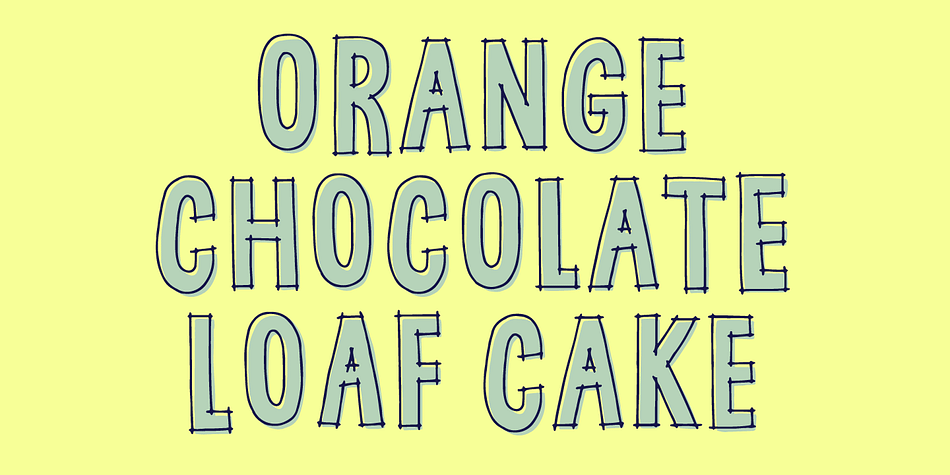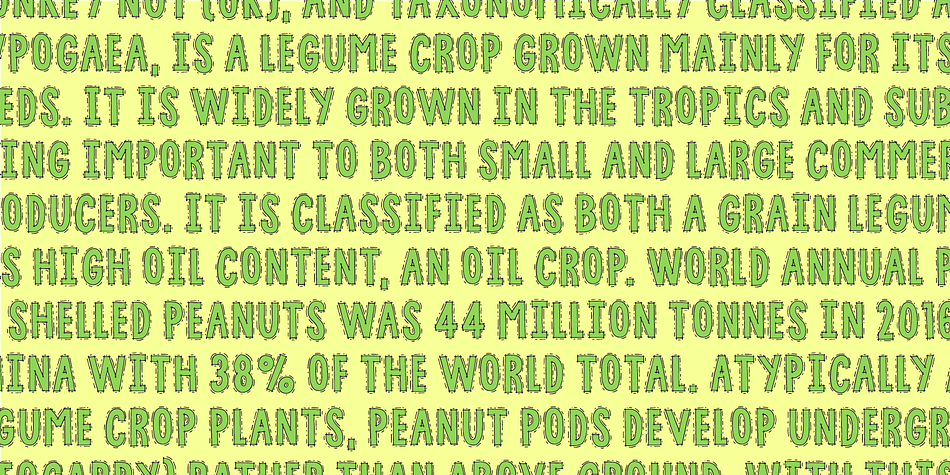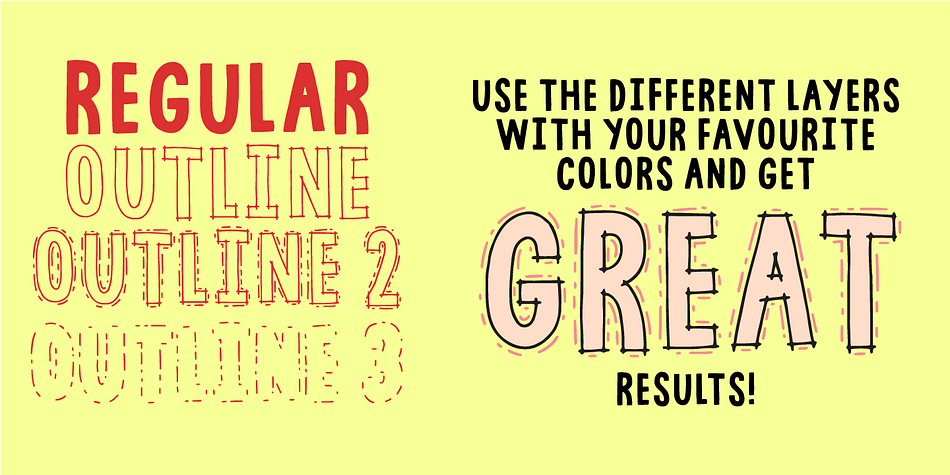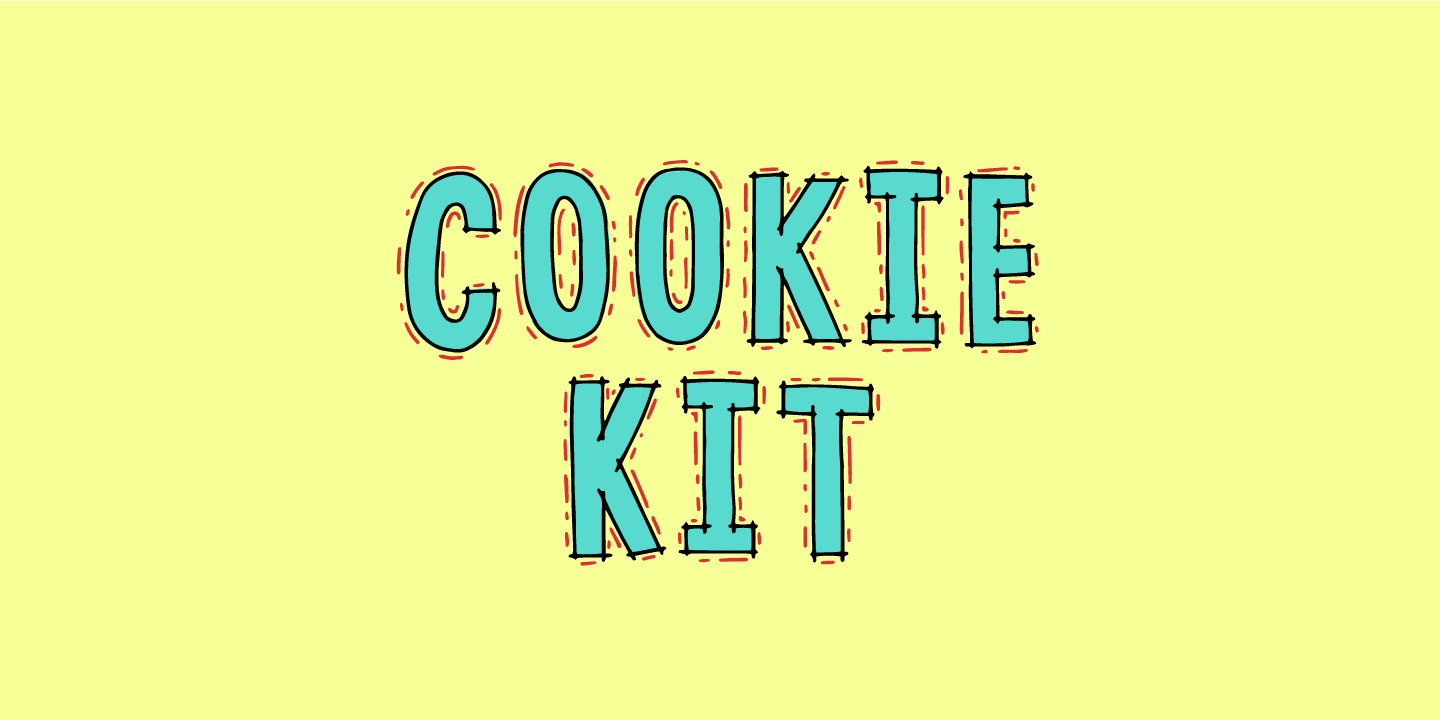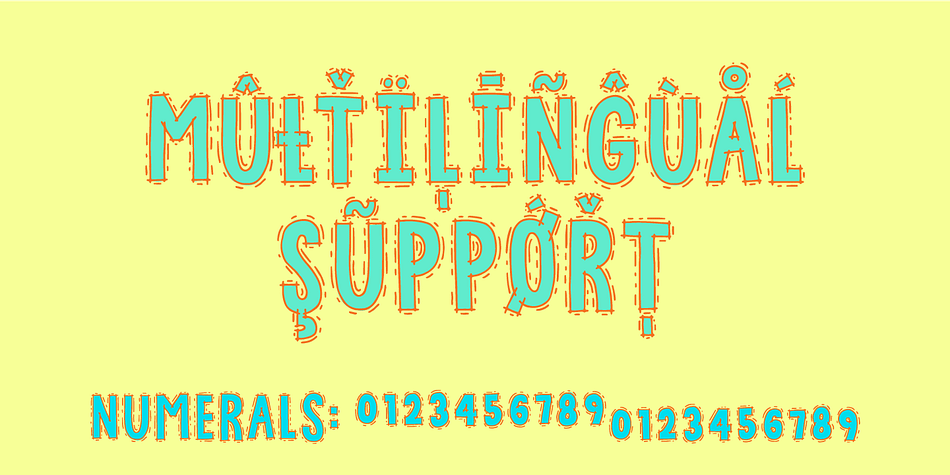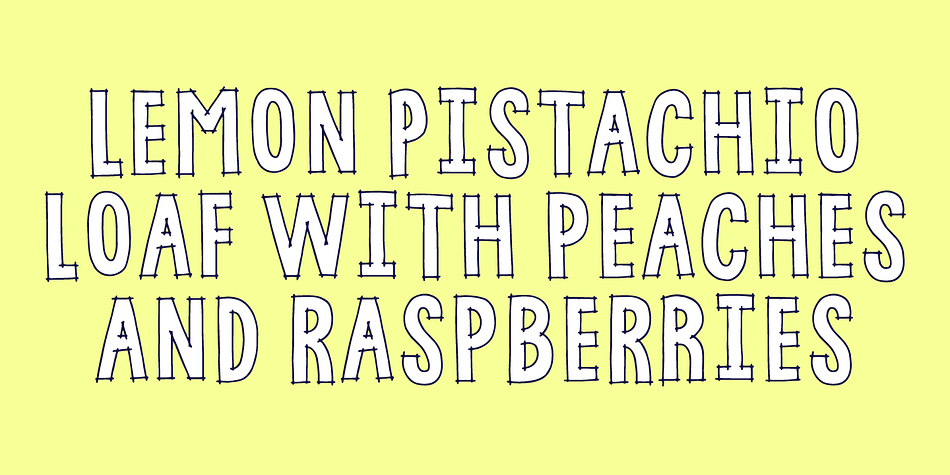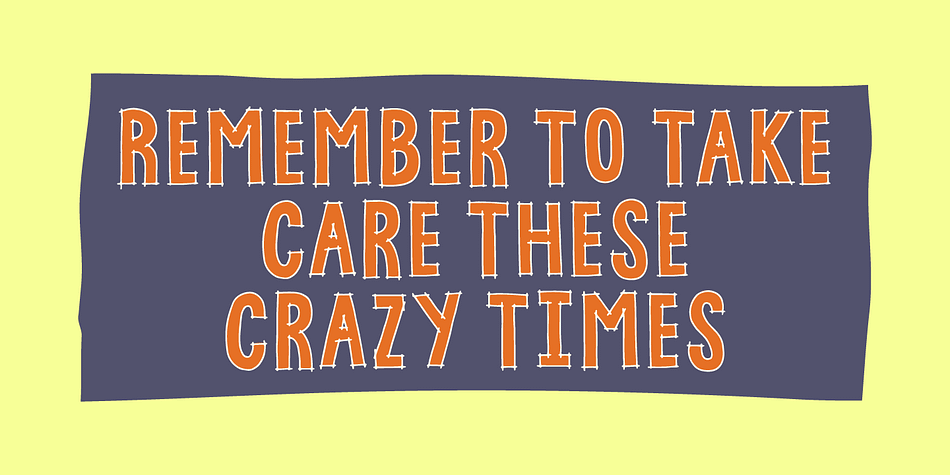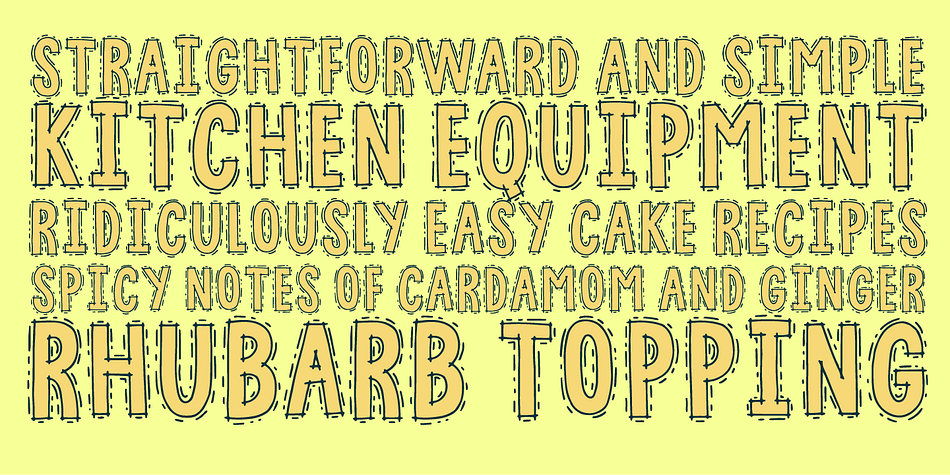
Designed by Jakob Fischer, Cookie Kit is a hand display font family. This typeface has four styles and was published by Bogstav.
Cookie Kit is just like that easy recipe for that delicious cake that you probably know - easy to make and it tastes absolutely fabulous - Cookie Kit has the same effect with designs: It’s easy to make cool effects with the 4 layers. Play around with your favourite colors and you get great results at the go!